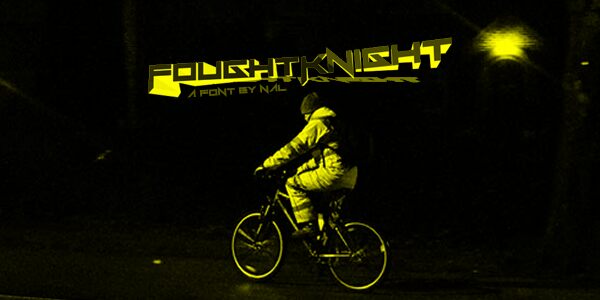
Fought Knight by Andrew McCluskey is a free angular techno display font with a hard futuristic profile shaped by extreme horizontal reach. Broad geometric letters feature sharp notches, triangular gaps, and blade-like strokes that extend above and below the main body, and squared interiors make the wide forms appear even more compact, almost like a machine emblem.
Gaming studios and electronic music labels could use it for logos, cover art, posters, and merchandise that lean into a combative sci-fi aesthetic. Its blade-like geometry points squarely toward cyberpunk, mecha, and futuristic action themes.